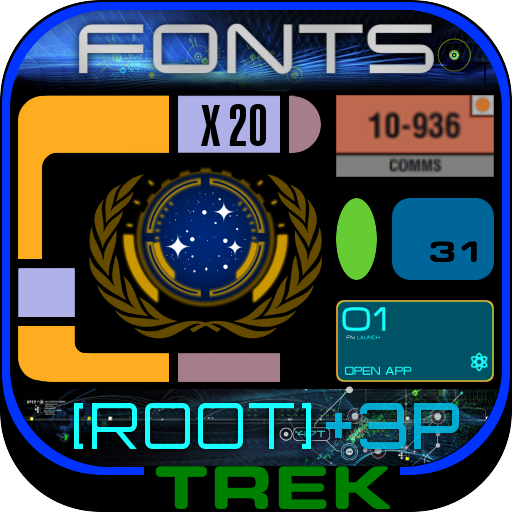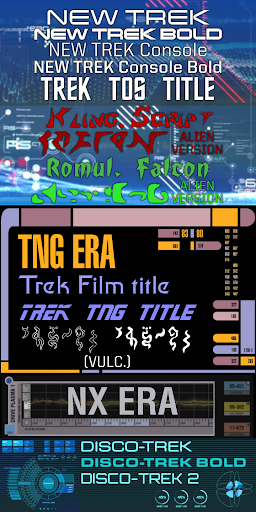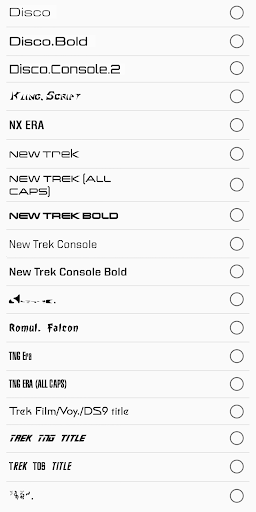
✦ TREK ✦ Fonts Pack [Root] or supported  3rd party icon
Enjoy the fonts of popular SciFi on your phone. These fonts will complete the look of the ✦ TREK ✦ themes made by NSTEnterprises. You can also use it just as is for a nicer looking text.
For a little extra security/encryption, or just for fun, use the alien (unreadable) fonts. Ideal for user interfaces known well enough to use without reading or lock screen numbers, etc.